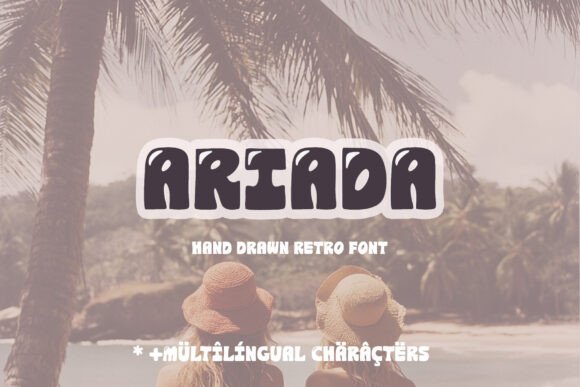
Unleash Your Creativity with Ariada Font
There’s something magical about the moment when an idea sparks, and you know exactly how you want to bring it to life. Maybe it’s a late-night brainstorming session, or a burst of inspiration on a solo hike. Whatever the moment, it’s the spark that sets your creative engine roaring. For designers, it’s the thrill of combining the perfect fonts, colors, and textures to create something truly unique.
Enter Ariada Font, a dreamy hand-drawn display retro groovy font that’s ready to help you bring your vision to life. With its versatility and abundance of ligatures and stylistic alternates, Ariada Font is the perfect companion for all your design projects. Whether you’re working on a vintage-inspired campaign or a modern branding project, Ariada Font is the perfect tool to add a touch of personality and flair.
Ariada Font Key Features
- Font Family: Ariada Font is a modern sans-serif font family designed for digital use. It comes in multiple weights and styles.
- Unique Characteristics: The font features a unique blend of geometric and organic shapes, giving it a distinctive and modern look. It also includes a wide range of language support and diacritical marks.
Ariada Font Review
I’ve had the chance to work with the Ariada Font, and I must say it’s an interesting combination of elegance and playfulness. ✨ The font’s curves are smooth, and the letterforms are well-balanced, making it suitable for a variety of design projects.
One of the things that stands out about Ariada is its wide range of weights and styles. ✨ You can use it for titles, headings, or even body text, depending on your design needs. The font also supports multiple languages, making it a great option for international projects.
- ⚠️ Ariada Font can feel a bit overused in certain contexts. Its unique style may not be for everyone, and it can clash with other fonts or design elements.
- ⚠️ The font’s x-height can be a bit inconsistent across different weights and styles, which may affect readability in certain situations.
- ⚠️ Ariada Font is not optimized for very small or very large text sizes, which can lead to distortion or loss of detail.
Overall, I think Ariada Font is a solid choice for designers who want to add a touch of sophistication and whimsy to their projects. However, it may not be the best fit for every design scenario. With careful use and attention to detail, Ariada can be a valuable addition to your design toolkit.
The Ariada Font is ideal for use in branding materials such as logos, business cards, and letterheads. It is also suitable for use in digital design projects such as infographics, social media graphics, and web design.